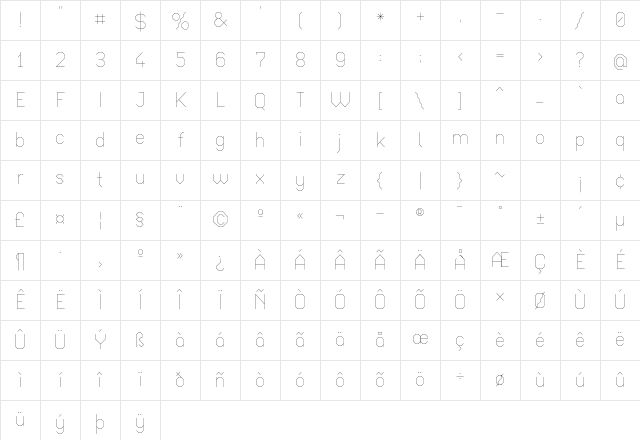
Complete Octagonal Ultra Light Regular glyph index. Displaying only characters natively supported by Octagonal Ultra Light Regular font.
Octagonal Ultra Light is a composed and adaptable typeface that performs quietly and consistently across a wide range of design contexts. Its slender proportions lend an understated elegance to any composition.